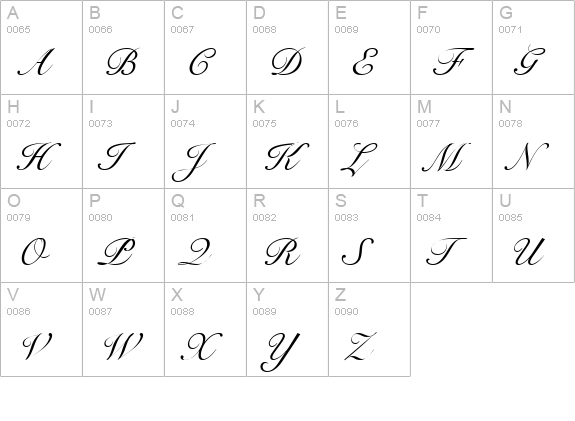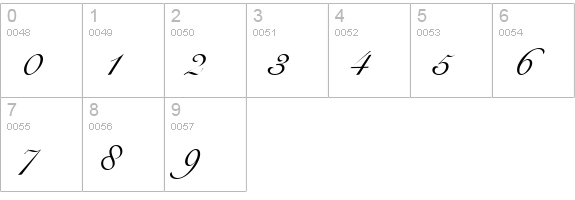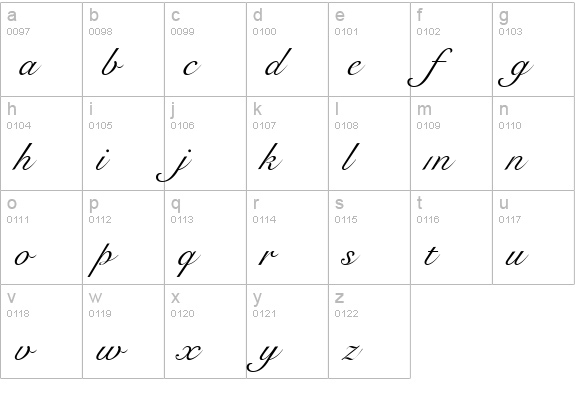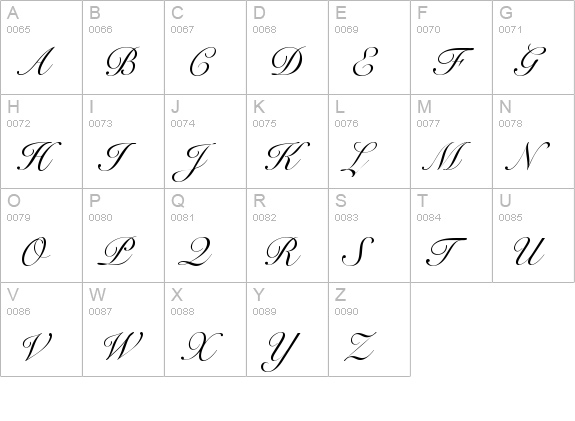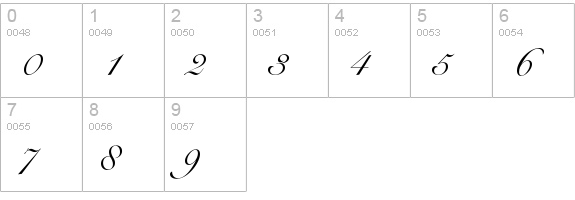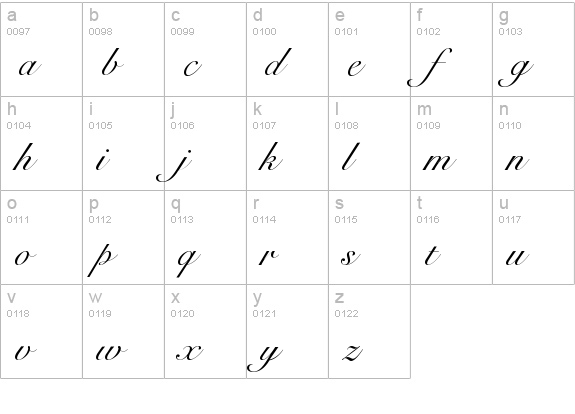
Below you can preview Bravo Script SSi in uppercase [A-Z], lowercase [a-z] and numbers [0-9]. You can also read the author's notes and license information before downloading.
Bravo Script SSi font is a stunning and versatile typeface that exudes elegance and sophistication. With its flowing and graceful script style, Bravo Script SSi is perfect for adding a touch of charm to any design project. This font is ideal for invitations, branding, packaging, and more. The best part? Bravo Script SSi is available for free download at FontsMarket.com. Take advantage of this beautiful and captivating font to elevate your designs and make a lasting impression. Don't miss out on the opportunity to enhance your creative projects with Bravo Script SSi, now easily accessible for free.